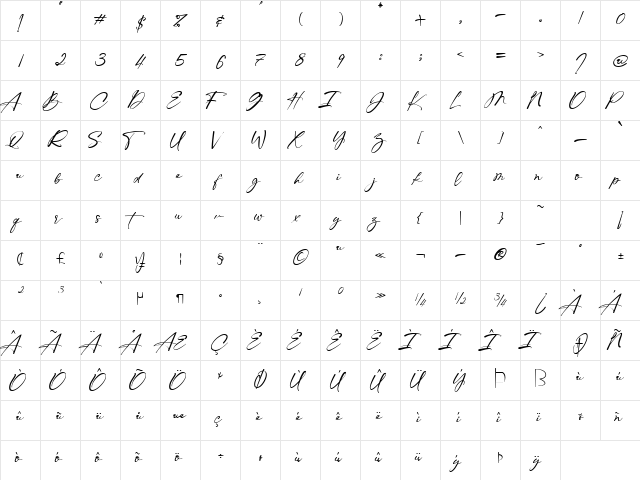
Morthsside Regular
| Designer | Aldedesign 2019 |
Design Context for Morthsside Typeface
Morthsside is a composed and adaptable typeface that performs quietly and consistently across a wide range of design contexts.